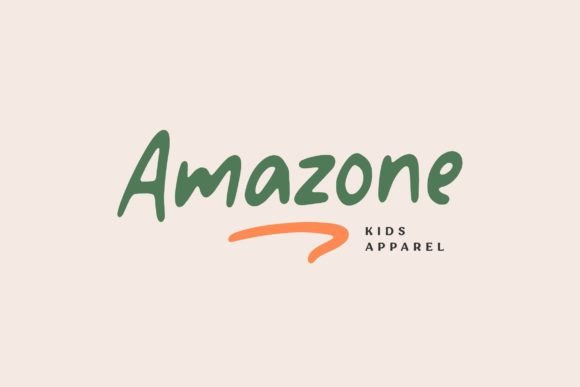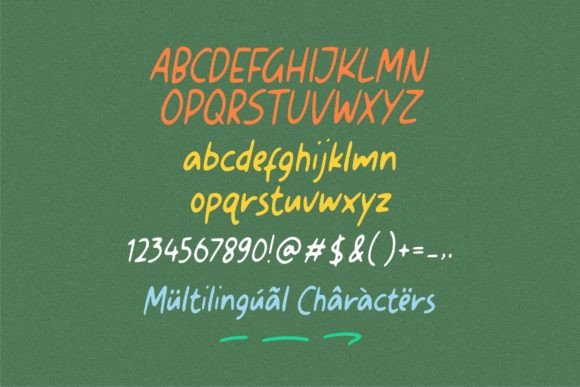
Introduction to Original Quotes Font
As a designer, there’s nothing quite like that moment when a project comes together in a burst of creativity. The spark of inspiration hits, and you know exactly what you need to make it shine. For many of us, that perfect finishing touch is the right font. And if you’re looking for a high-quality, one-of-a-kind option, you’re in luck.
The Original Quotes Font is a standout design resource that’s sure to elevate your next creative project. Its playful, handwritten style is both versatile and fun, making it perfect for a wide range of applications – from social media posts to website headers, and everything in between.
What sets the Original Quotes Font apart is its transparent background, making it easy to overlay on top of images or use as a standalone design element. And the best part? It’s free to download, so you can get creative without breaking the bank.
Key Features of Original Quotes Font
- High-quality font design with unique and creative characters, perfect for any design resource.
- Transparent background, making it easy to place quotes on any image or background.
- Ideal for creative projects, such as graphic design, digital art, and publishing.
- Unique characteristics, including hand-drawn elements and custom illustrations, set this font apart from others.
Honest Review: Original Quotes Font
I recently stumbled upon the Original Quotes Font, and I must say it’s been a valuable addition to my design resource collection. The high quality of the font is immediately noticeable, and the transparent background makes it easy to integrate into any creative project.
- ✨ Beautiful, elegant design that adds a touch of sophistication to any text
- ✨ Suitable for a wide range of creative projects, from posters to social media graphics
- ⚠️ Limited character set, which may not be suitable for projects that require a large amount of text
Overall, I’m impressed with the Original Quotes Font and would recommend it to designers looking for a high-quality, easy-to-use font for their creative projects. While it may have some limitations, it’s a valuable addition to any design resource collection.
Use the font on a contrasting background to make it stand out. Experiment with different font sizes and styles to create a visually appealing design. Consider using the font in combination with other design elements, such as images or shapes, to create a unique and creative project.
Use the Original Quotes Font in social media graphics, posters, and flyers. You can also use it in presentations, documents, and websites to add a touch of elegance and sophistication. The font is perfect for quotes, captions, and headings, making it a valuable design resource for any creative project.